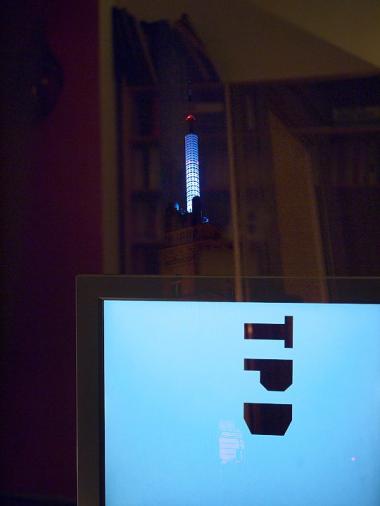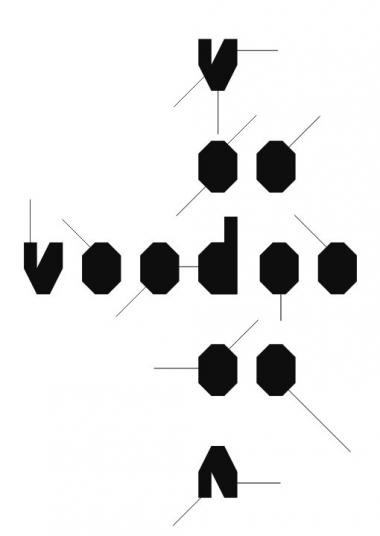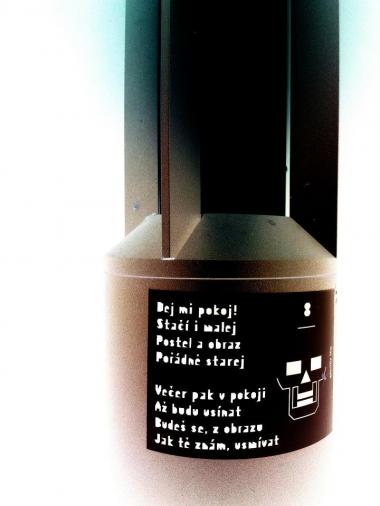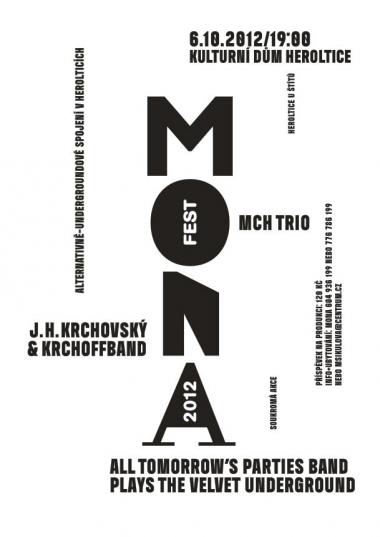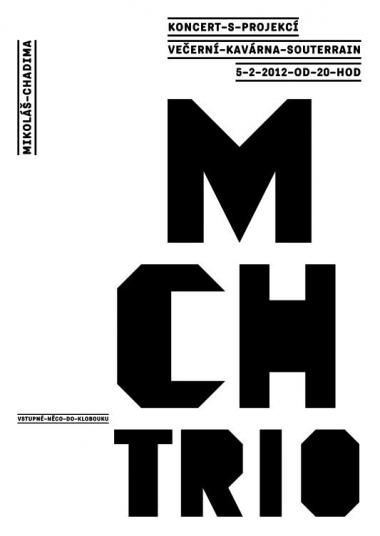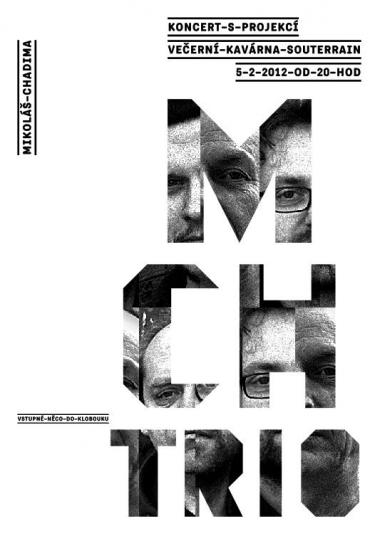
polystereonAA used by TPD
Very nice, looks so natural.
Pretty font and very cool samples.
These are all very beautiful samples! 10/10
The samples really make this fs stand out.
totaly agree with thalamic
I wonder, is it some sort of art activity / performance / installation placarding these posters ? Is it a specific project ? A series (I can see it going to 19) mixing a short trxt with some sort of pictogram (i love these) ? Could you tell a bit more of what say the texts ?
it's a series of 23 stickers of "guerilla poetry" (probably some next series will follow in the future)... there is a black and white version and version in colors... i'm not a "guerrila poet" nor a "designer" of those stickers... if you'll click on pictures here, you'll get into my G+ album or FB page of "guerilla poets" (more photos with better resolution there)... however, it just started, so only few pieces found its place outside so far (i'll keep adding photos into album)... font used on those stickers is a mixture of different "historical" versions of polystereon messed up together
polystereonAA
polystereonAB